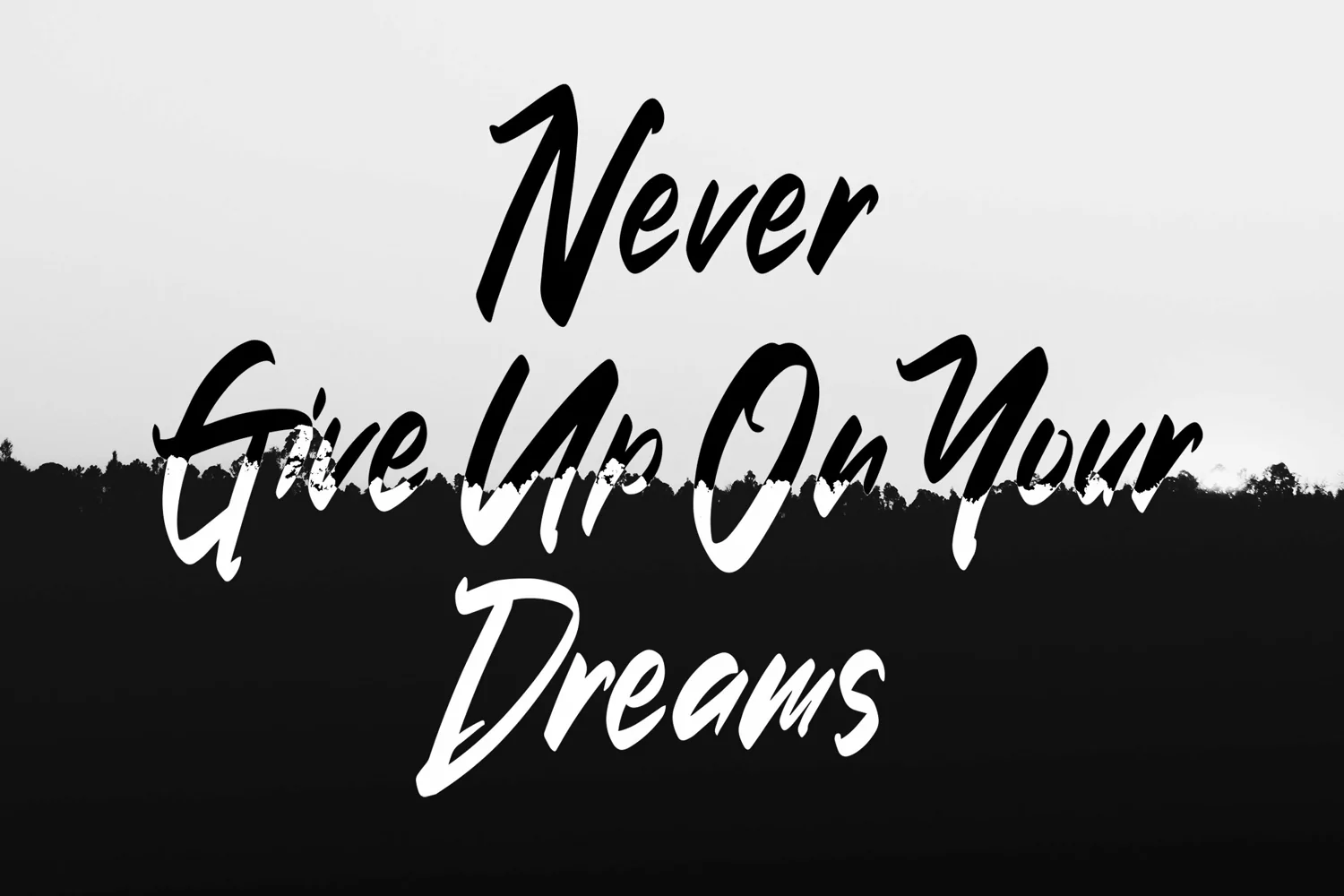
Zircon - Handlettered Brush Font that contain lowercase, uppercase, symbol, and also support multi language. There’s a lot ligatures in this font. This Font also comes with ligatures, alternates and many more. this font suitable for fashion, branding, catalog and other design what you want.
Zircon